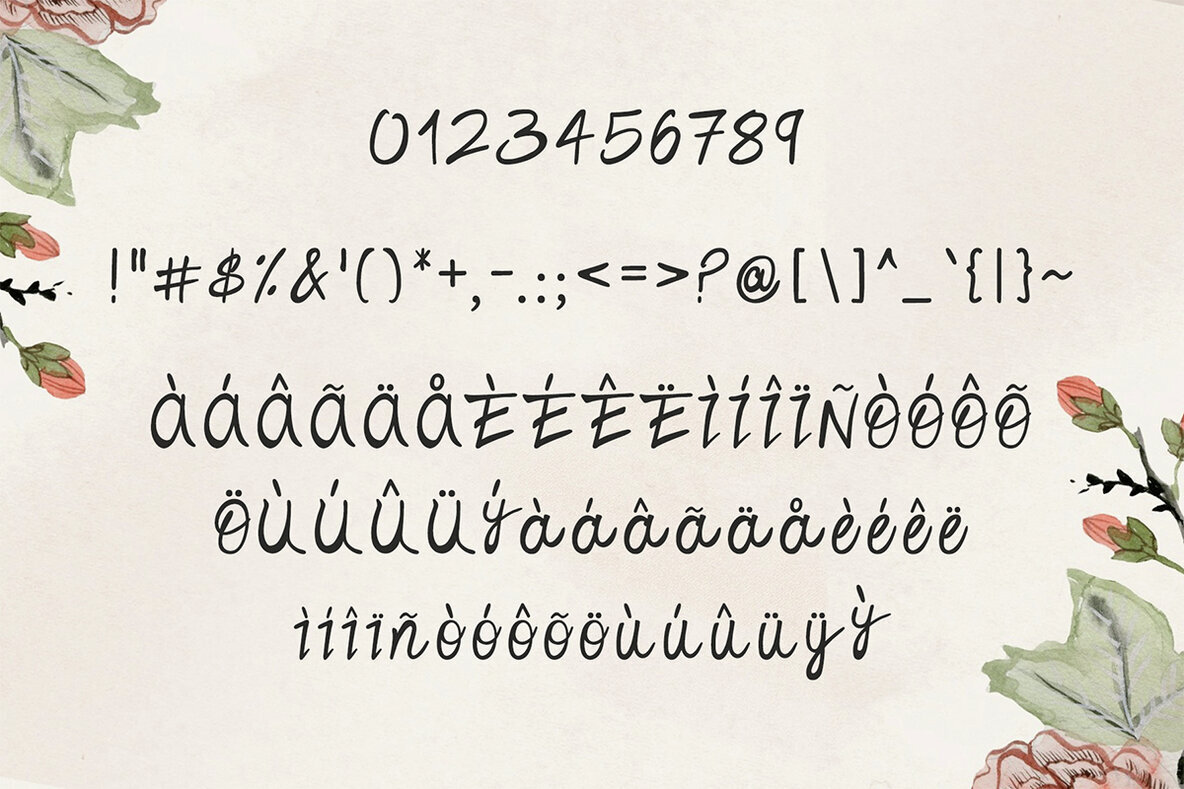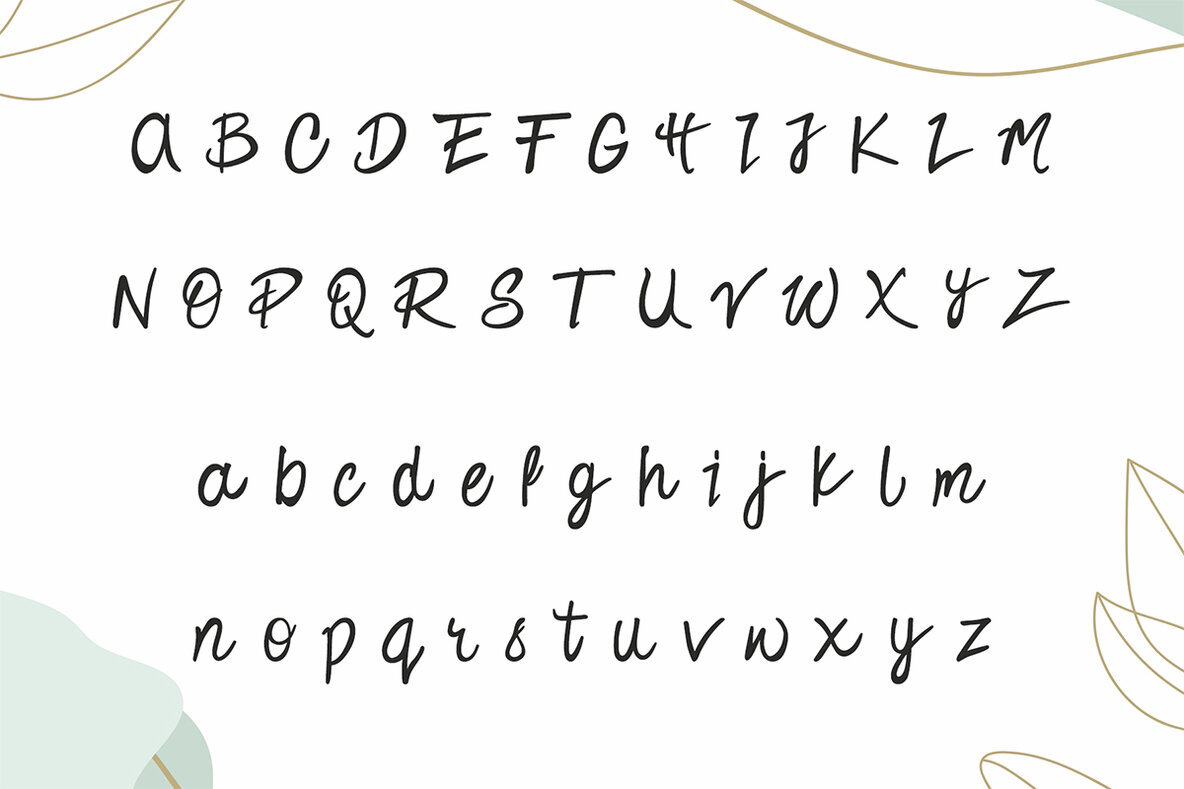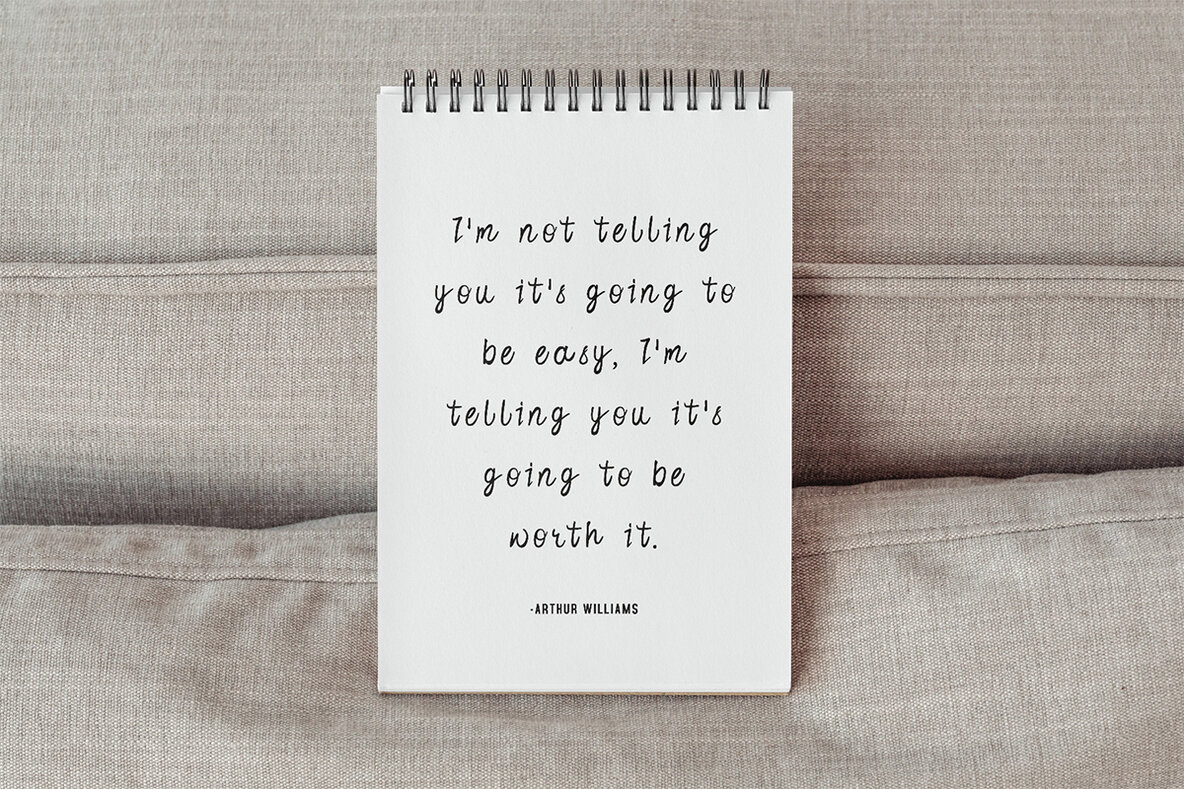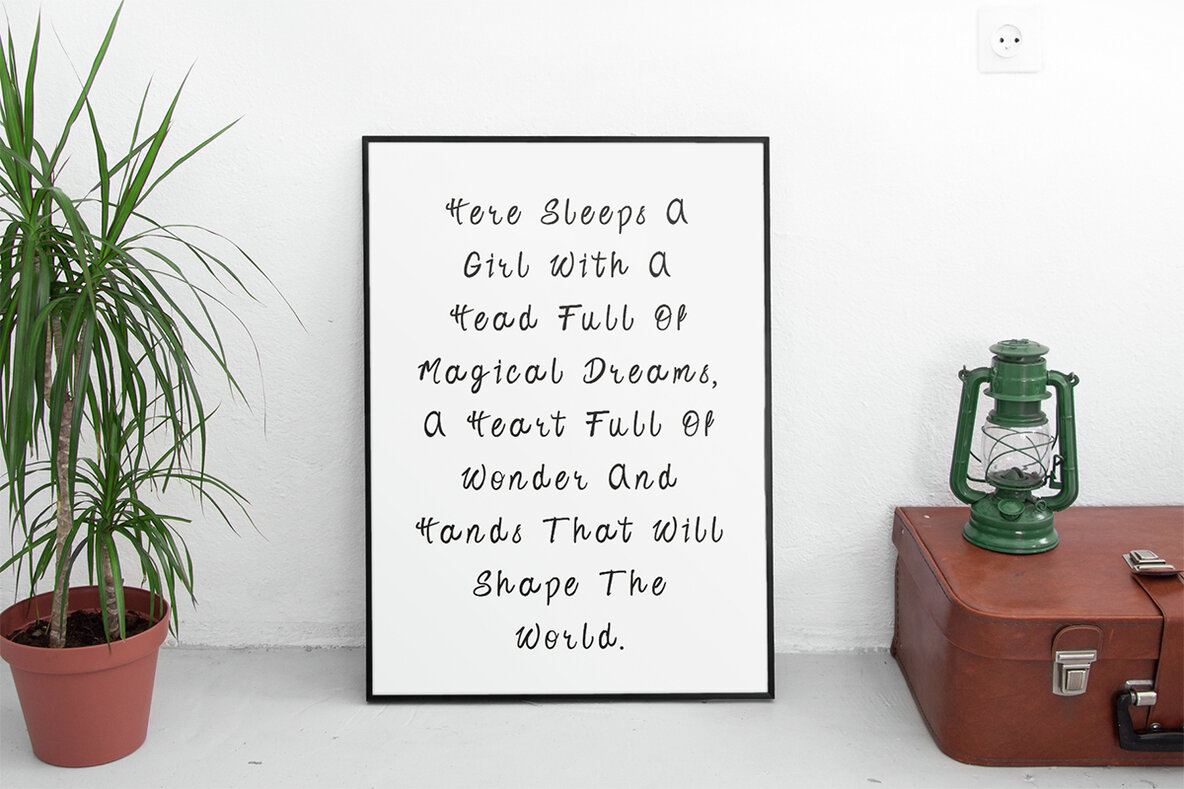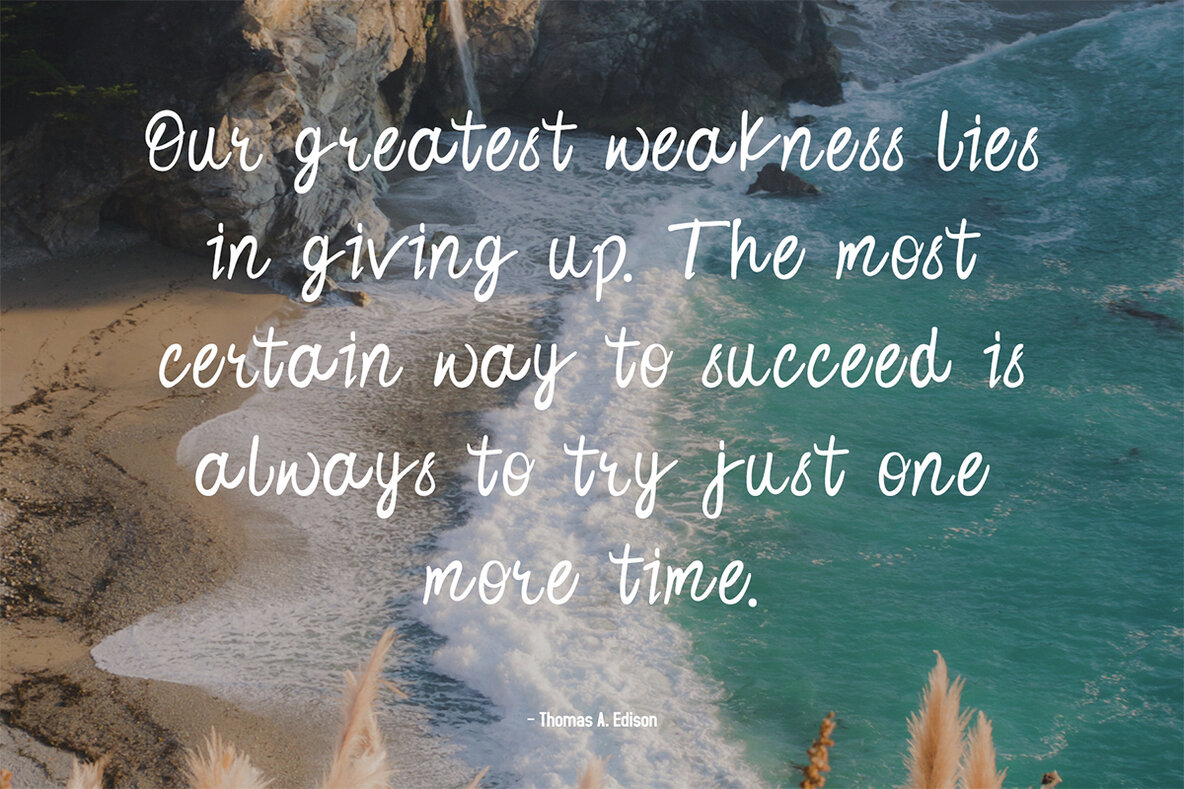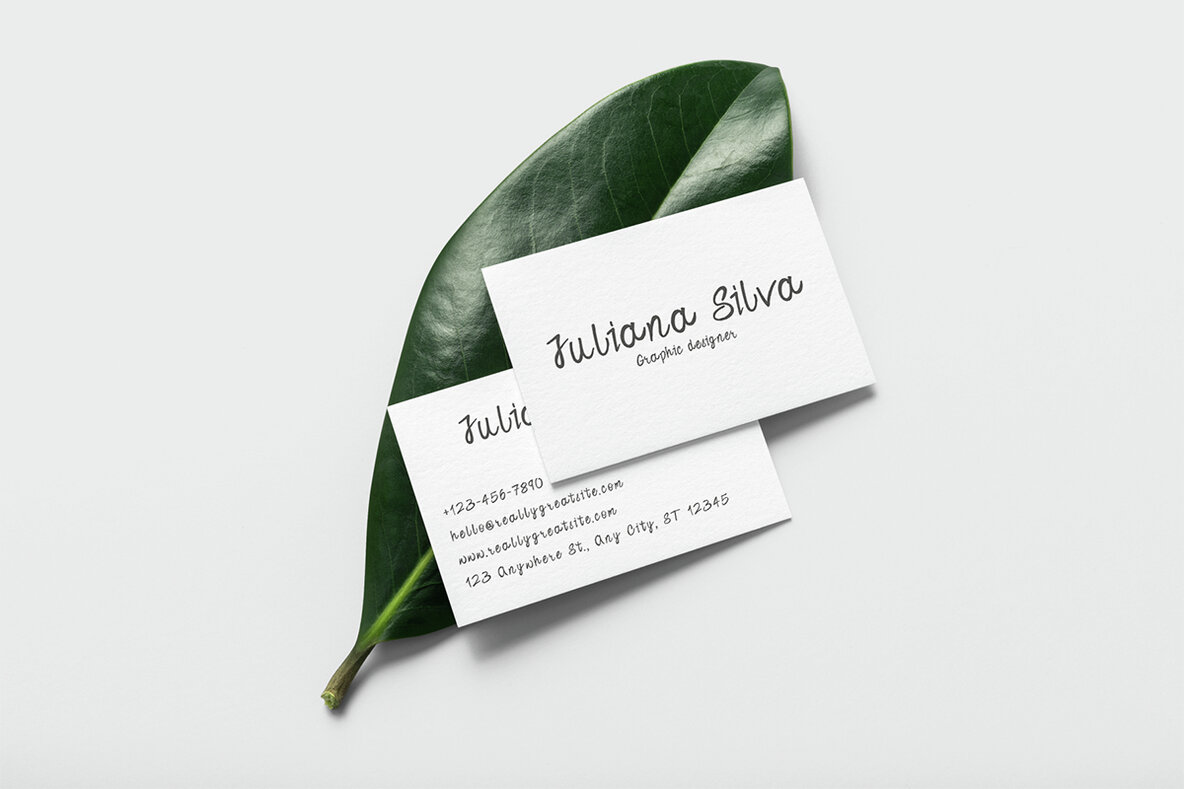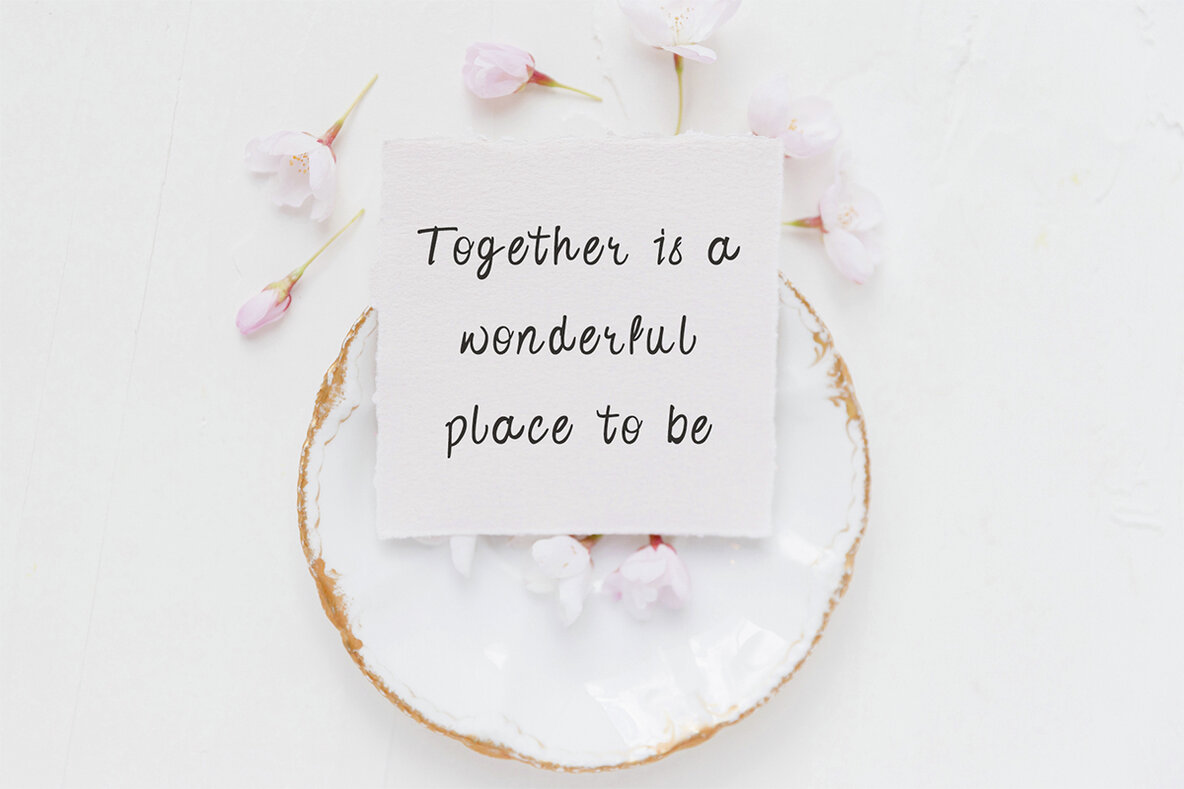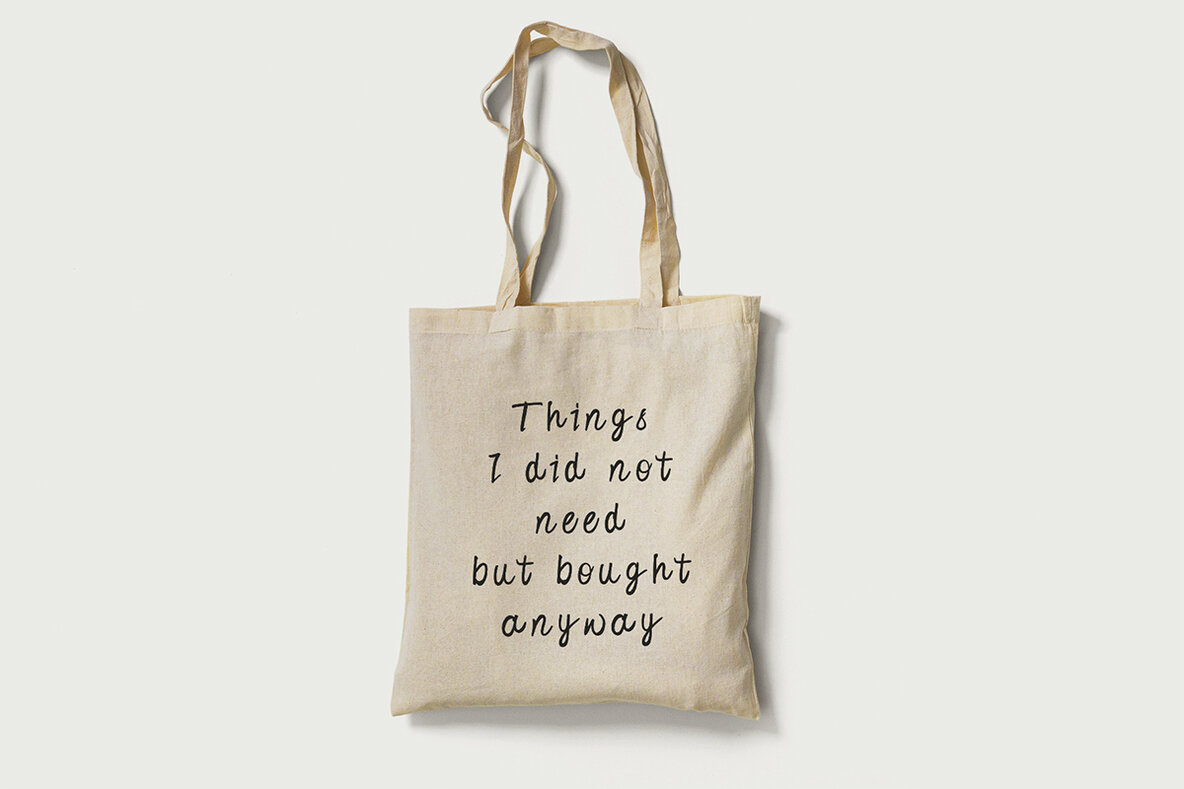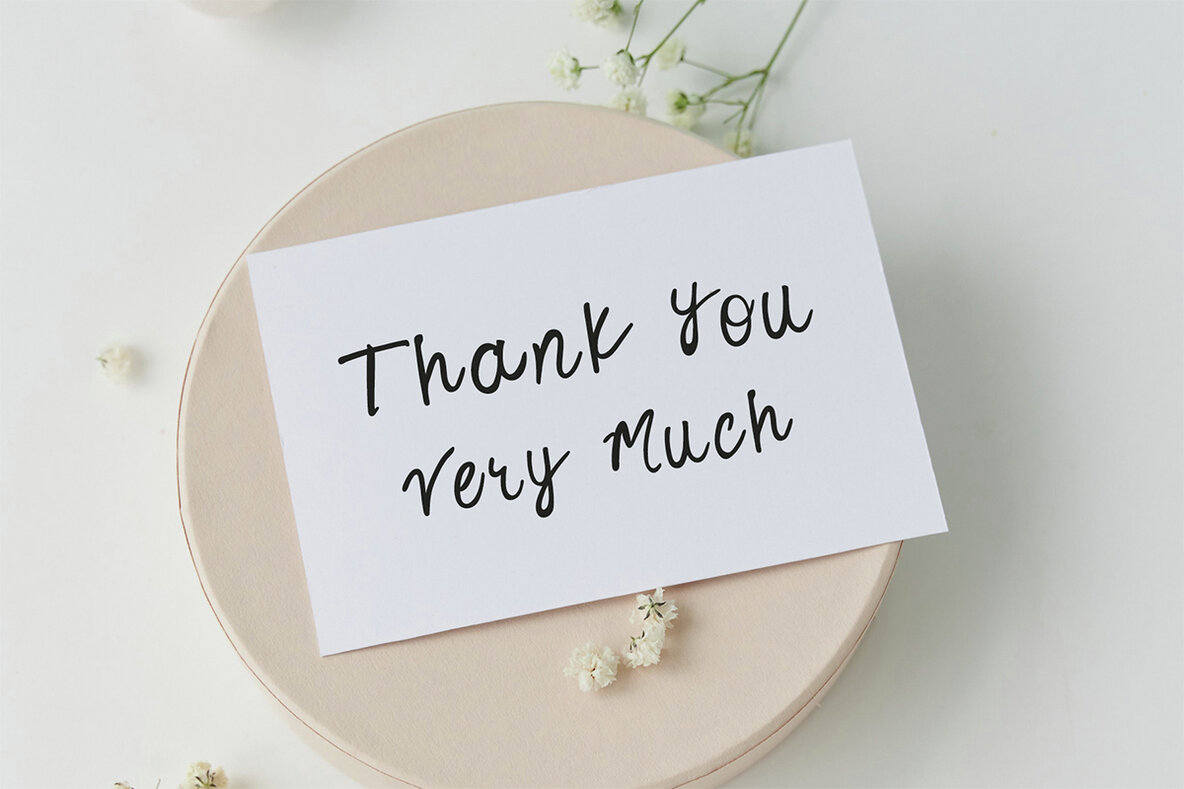
Haeley Font
Haeley Regular
Introducing Haeley Handwritten Font, a quirky and natural hand-made typeface designed to add a chic and cheerful touch to your creative projects. This font includes uppercase and lowercase letters, numbers, punctuation, and a variety of symbols. Haeley also supports multilingual characters, making it versatile for global use. Perfect for packaging, presentations, logos, headlines, posters, branding, quotes, titles, magazines, advertising, and web layouts, Haeley brings a unique personality to each letter, enhancing the visual appeal of your designs.
With its comprehensive character set, including accented characters and a full range of punctuations and symbols, Haeley is well-suited for diverse applications. Whether you're designing invitations, book covers, or any other creative endeavor, this font provides the flexibility and charm needed to make your work stand out. Engage your audience with the playful and stylish essence of Haeley Handwritten Font.